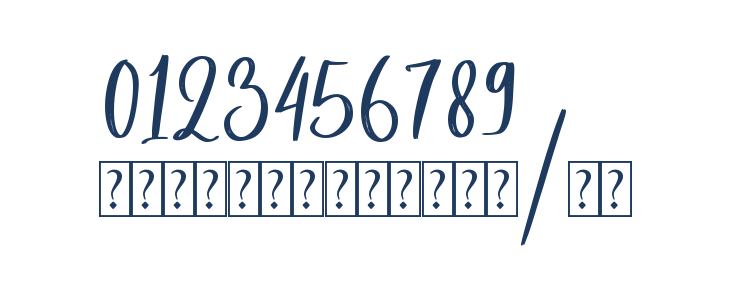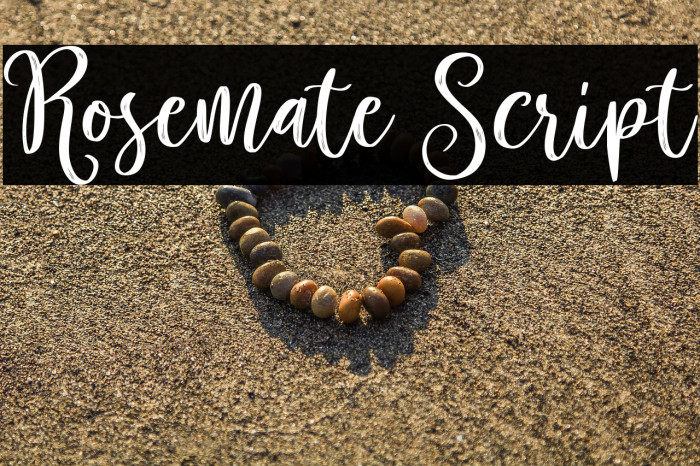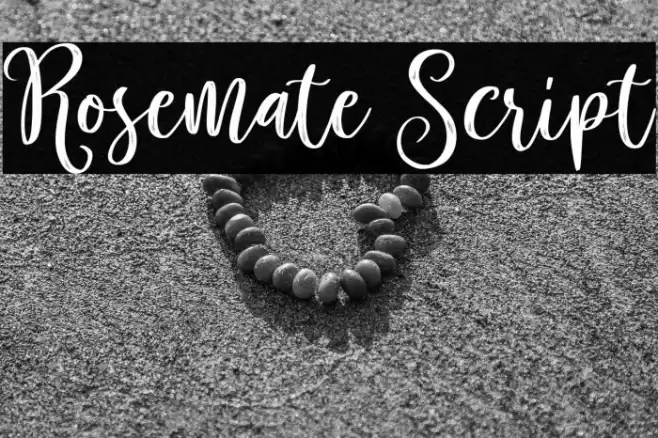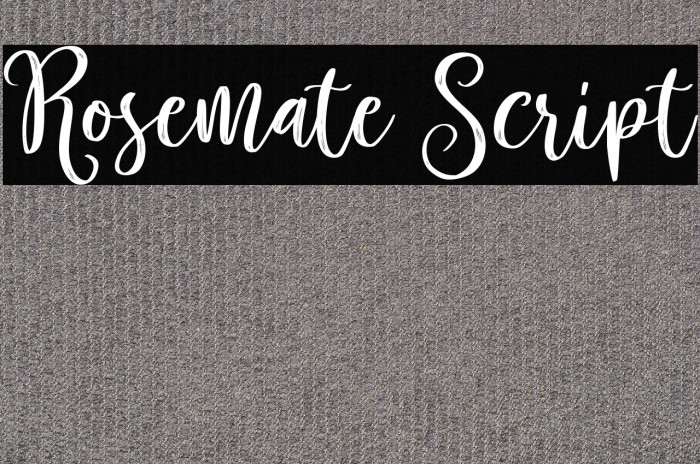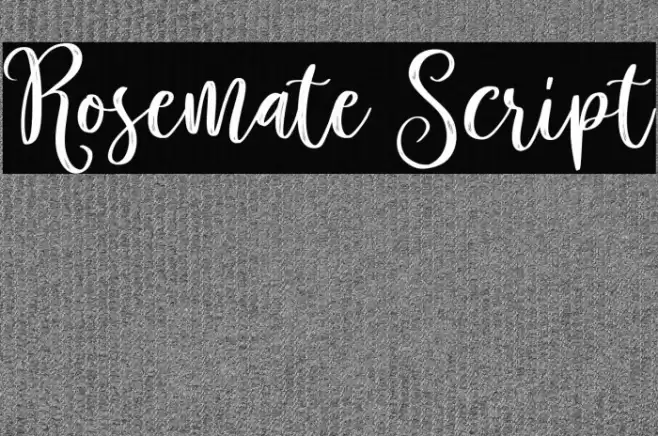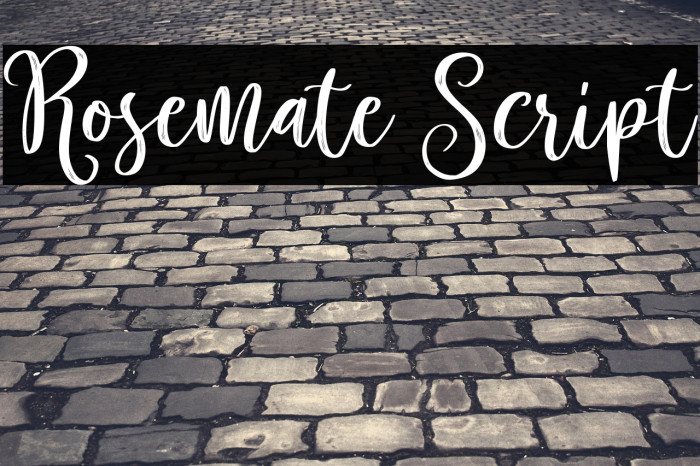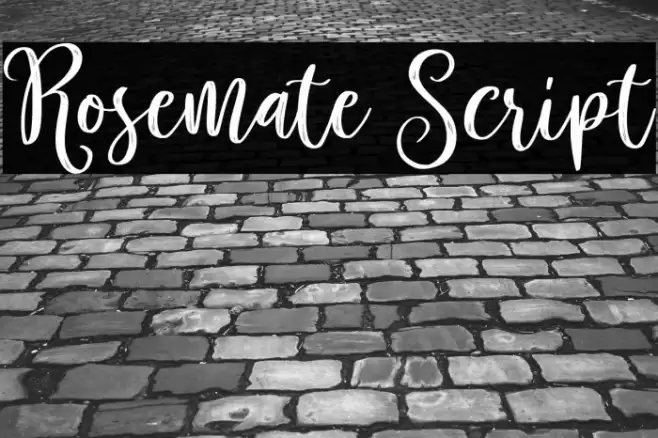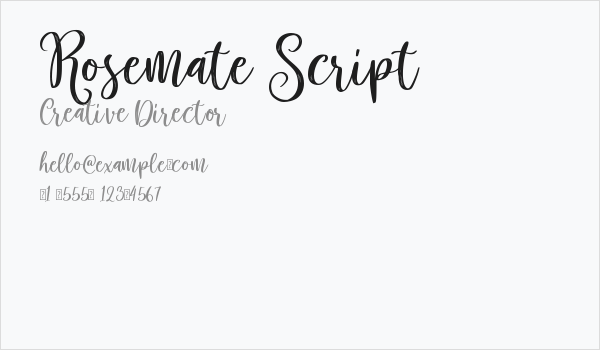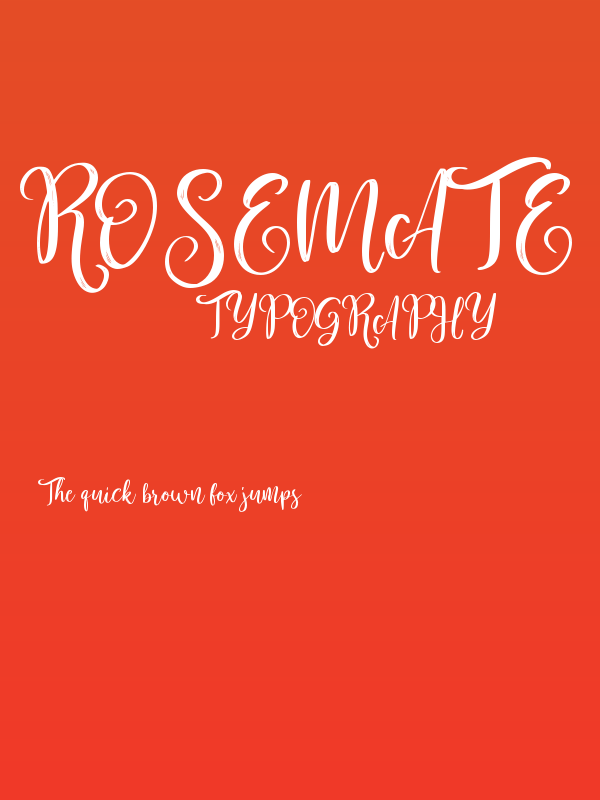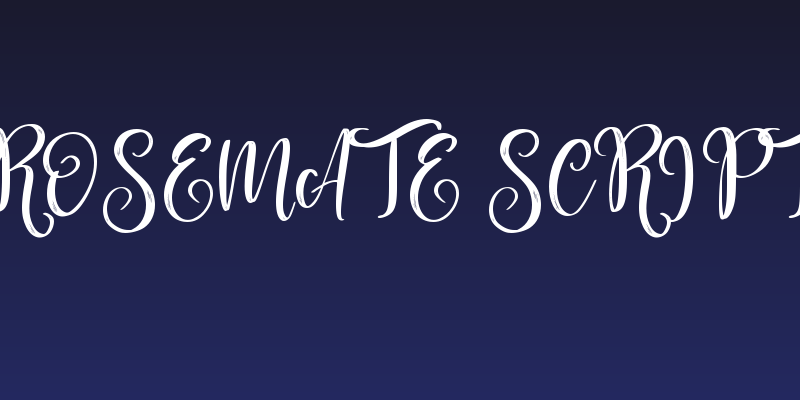
Rosemate Script Font
Rosemate Script Description
This elegant script font features graceful, flowing lines that mimic the fluidity of handwriting. The uppercase letters are characterized by their tall, slender forms with intricate loops and swirls, adding a touch of sophistication. The lowercase letters maintain a consistent style, with smooth curves and a slightly slanted orientation, enhancing the font's cursive nature. The numerals are designed to complement the letters, with a similar emphasis on curves and fluidity. This font is ideal for projects that require a personal, artistic touch, such as invitations, greeting cards, or branding materials. Its decorative style makes it stand out, while the consistent stroke width ensures readability.
Use CaseHeadlines, Logos, Invitations
Proposed ProjectsIdeal for wedding invitations, greeting cards, branding, and artistic projects.